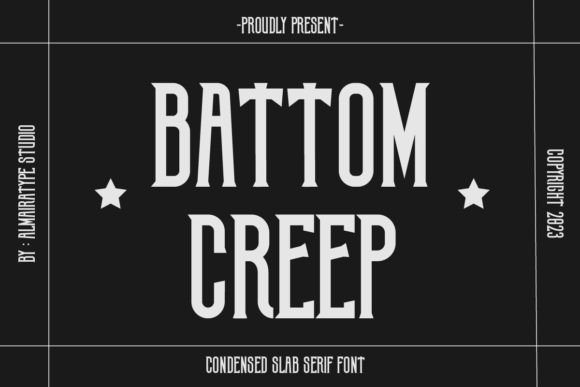
Battom Creep is a manly and modern slab serif font.
👤 Author Almairatype Studio
font with a spooky and sharp touch fonts suitable for labels, movie titles, svg crafts, Etsy branding, printing, invitations, t-shirts, web, Cricut, Christmas, and many other ideas.